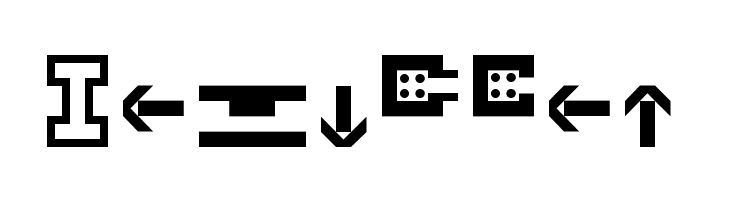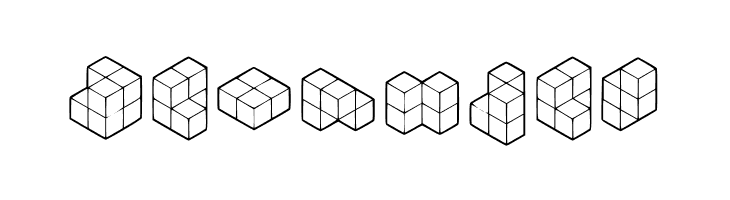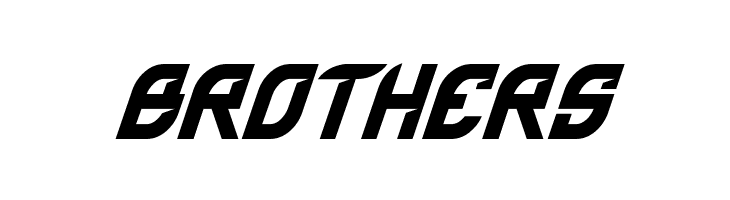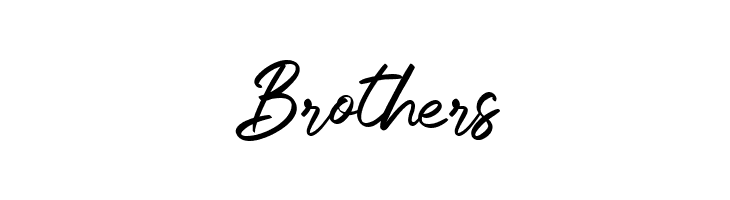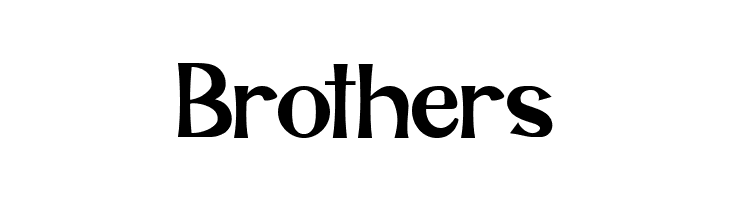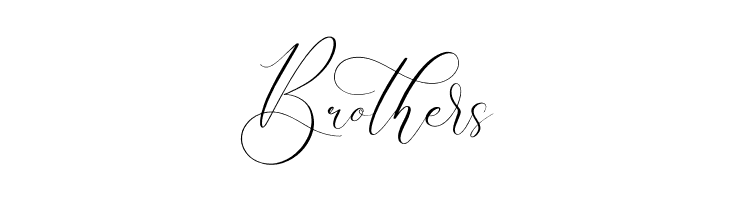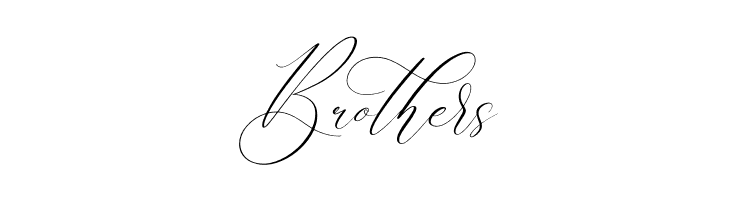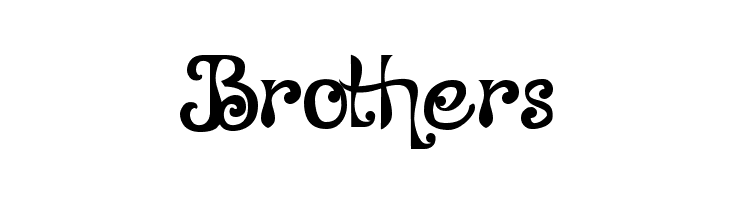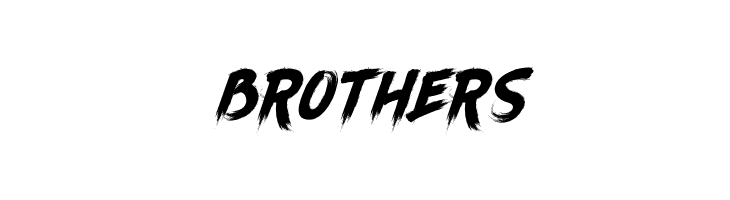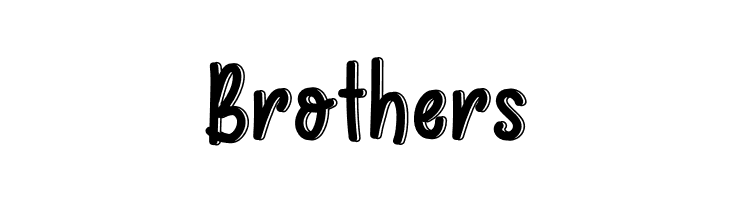
A delicate, cursive handwritten font with flowing lines and elegant strokes.
A playful, casual handwritten font with fluid strokes and a friendly appearance.
A futuristic, geometric font with bold, rounded shapes and a digital aesthetic.
A modern, italicized font with bold, angular lines and a futuristic style.
A fluid and elegant script font with dynamic, cursive letterforms.
A geometric, isometric cube font with a bold, three-dimensional style.
Elegant cursive script font with modern flair.
An elegant script font with flowing, interconnected letters and intricate flourishes.
An elegant script font with flowing, interconnected letters and ornate flourishes.
A sophisticated handwritten font with elegant, flowing lines and a dynamic slant.
A bold, artistic font with geometric and organic elements, ideal for decorative use.
A creative display font inspired by medical instruments, perfect for anatomical themes.
A bold, geometric font with calligraphic influences, perfect for creative and modern designs.
A bold, geometric font with sharp edges and a modern-traditional blend.
A bold, italicized font with dynamic slant and angular design.
A dynamic italic font with sharp serifs and a modern, artistic style.
A playful and whimsical font with tall, narrow letterforms and dynamic strokes.
A playful, whimsical font with tall, narrow letters and a modern artistic flair.
An ornate and decorative font with intricate curls and swirls.
A whimsical and playful font with dynamic character shapes.
A bold, expressive handwritten font with dynamic strokes and playful elegance.
A bold, expressive script font with a hand-painted, brush-like style.
A bold, italicized font with a dynamic, modern style.
Decorative silhouette font featuring ancestral figures in historical attire and activities.
A decorative font featuring intricate illustrations within each character.
A bold, brush-style font with dynamic and energetic characters.
A bold, artistic font with dynamic, hand-drawn strokes and a unique flair.
A bold, brushstroke-style font with a dynamic and expressive appearance.
A bold, brush-style font with sharp, dynamic strokes and a hand-painted appearance.
A bold, playful font with a nautical theme and rounded, flowing characters.
A playful, bold, and handwritten-style font with rounded characters.
A bold, geometric font with a strong, modern presence.
A bold, Art Deco-inspired font with geometric shapes and sharp angles.